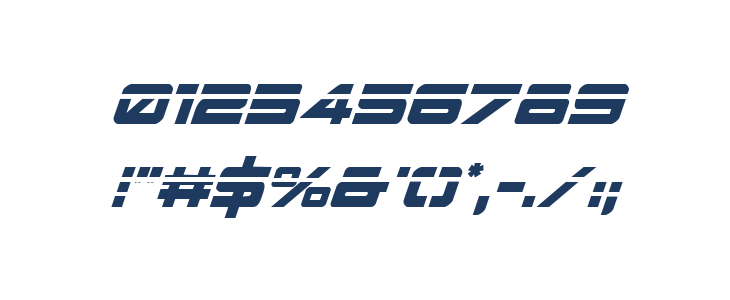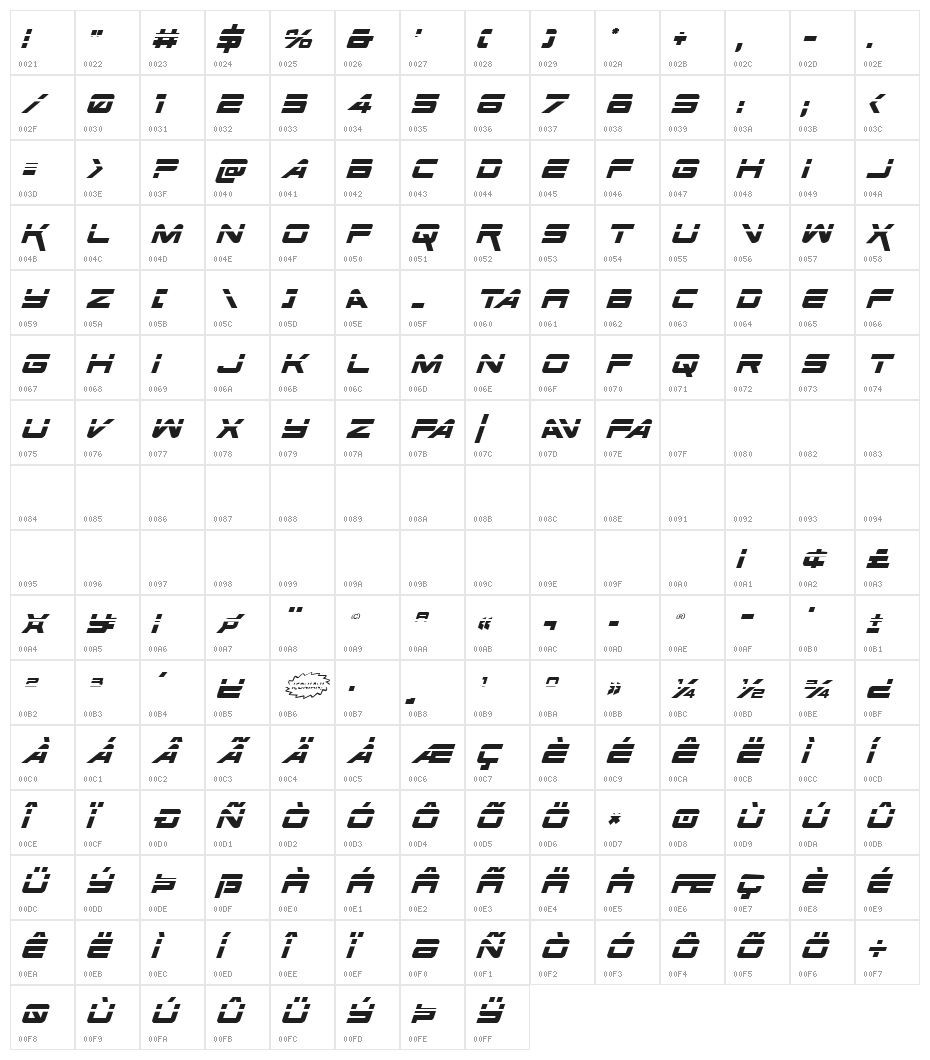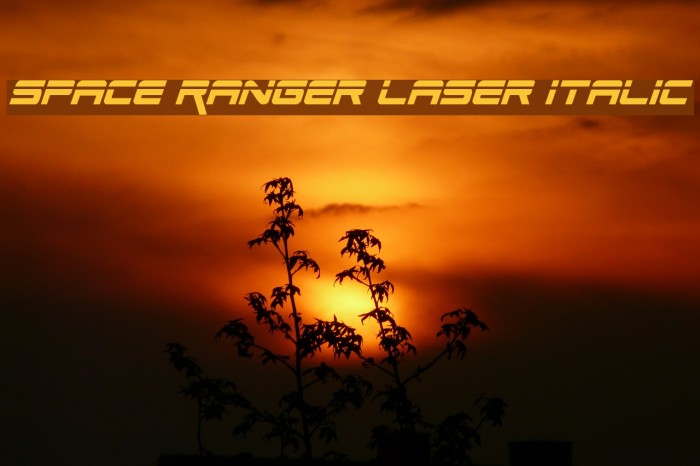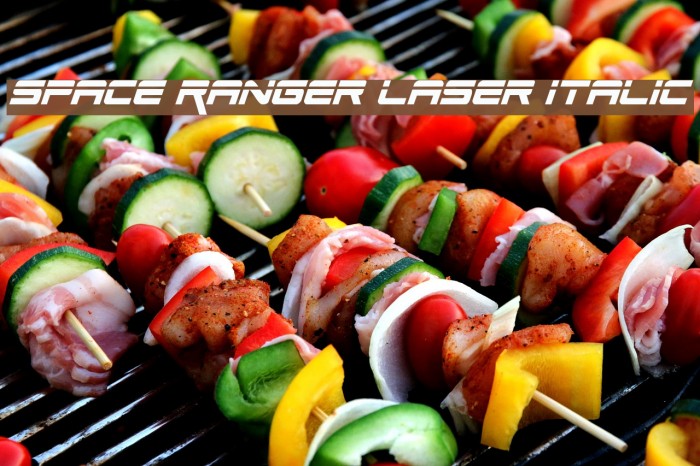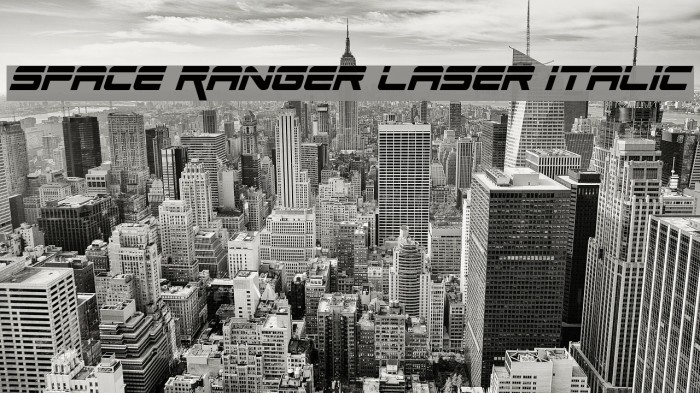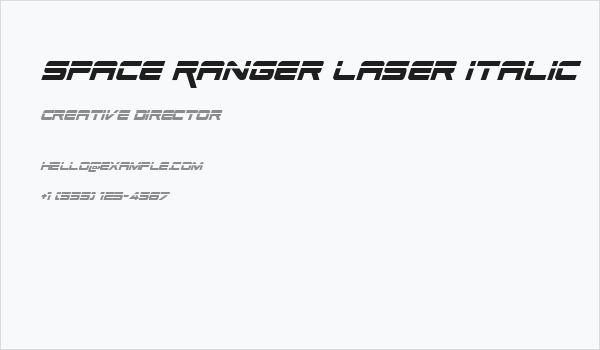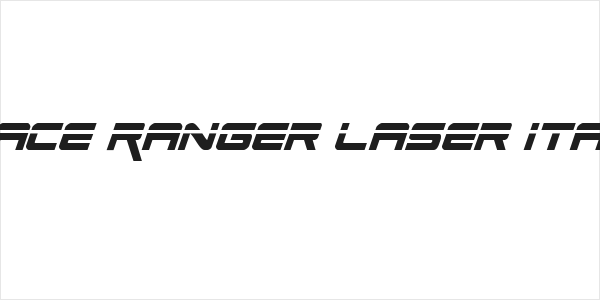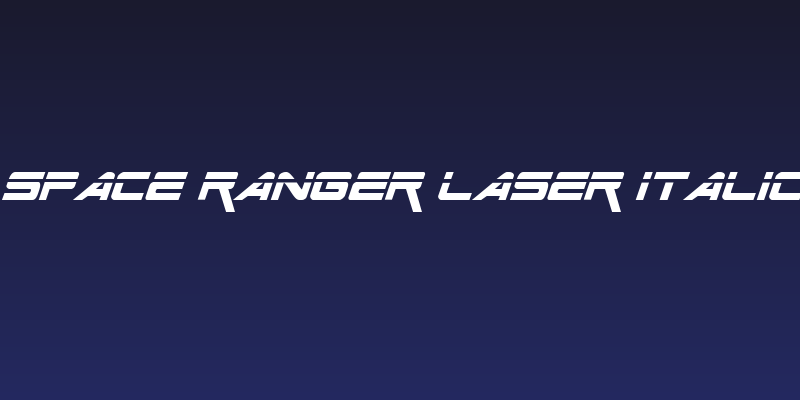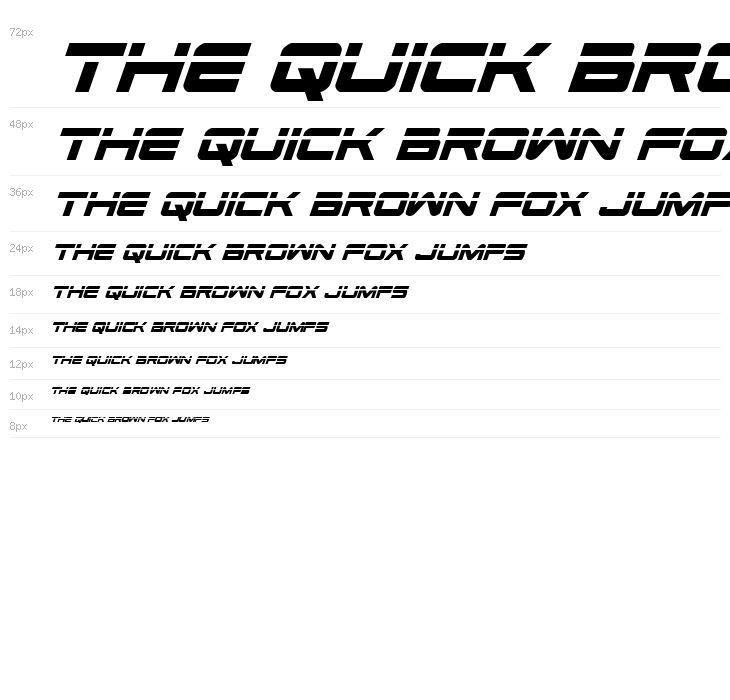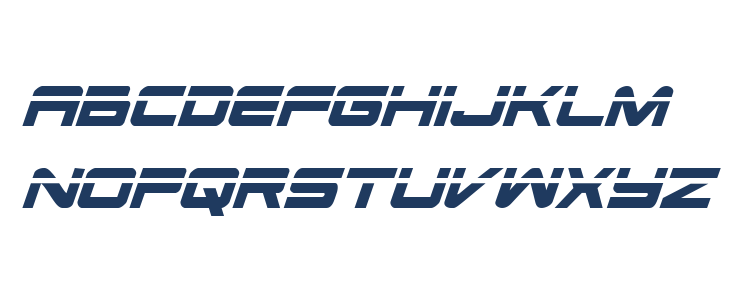
Space Ranger Laser Italic Font
Space Ranger Laser Italic Description
This font features a futuristic and dynamic design, characterized by sharp angles and a slanted, italicized style that suggests movement and speed. The characters are bold and geometric, with a distinct sci-fi aesthetic that is both modern and eye-catching. The uppercase and lowercase letters maintain a consistent style, with a uniform stroke width that enhances readability while maintaining a unique visual appeal. The numerals and special characters are designed to complement the letterforms, ensuring a cohesive look across all text elements.